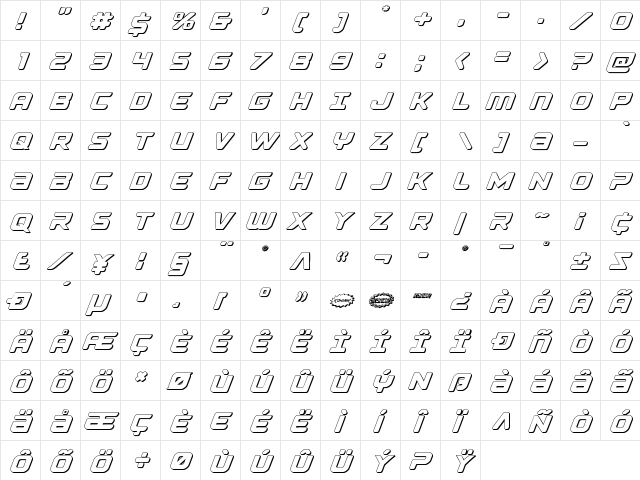
Falcon Punch 3D Regular
Design Context for Falcon Punch 3D Typeface
Falcon Punch 3D is a composed and adaptable typeface that performs quietly and consistently across a wide range of design contexts.